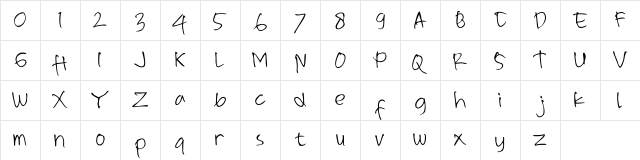
pipih Regular Free Font
pipih Regular
Design Context for pipih
pipih is a composed and adaptable typeface that performs quietly and consistently across a wide range of design contexts.